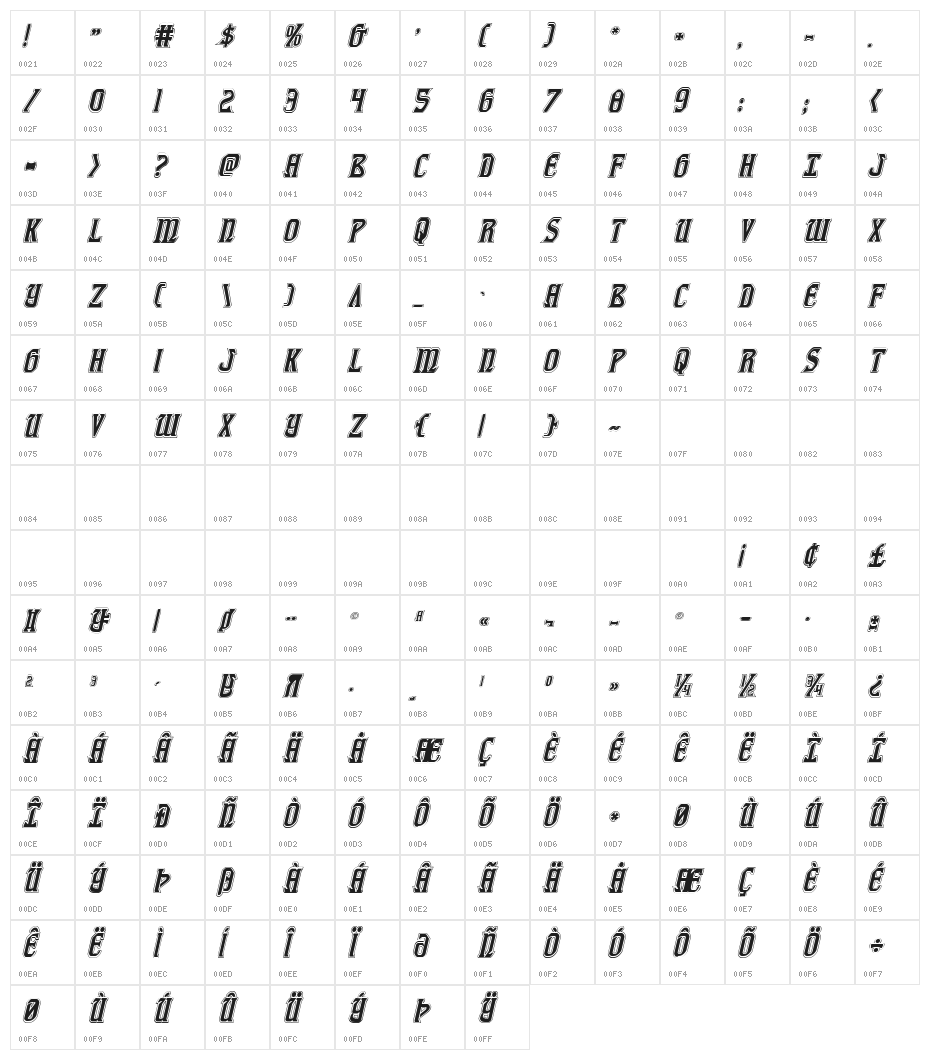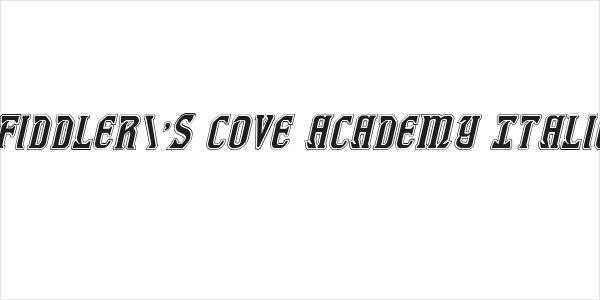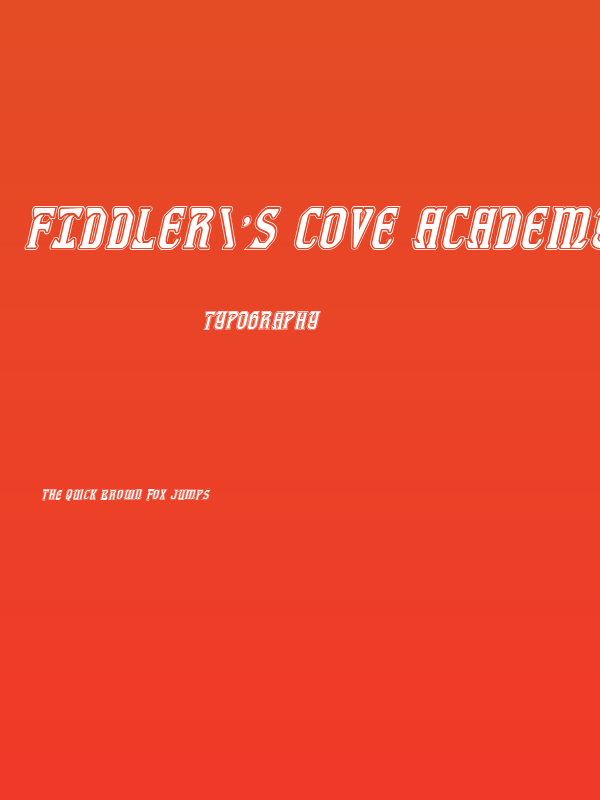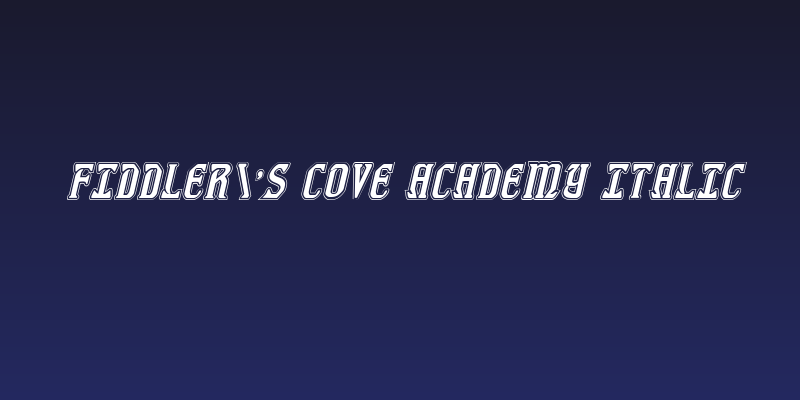
Fiddler's Cove Academy Italic Font
Fiddler's Cove Academy Italic Description
This font features a bold and dynamic style with a strong presence, characterized by its italicized and decorative letterforms. The letters have a distinct shadow effect, giving them a three-dimensional appearance. The strokes are thick and consistent, providing a sense of strength and stability. The font includes both uppercase and lowercase letters, numbers, and a variety of special characters, making it versatile for different design needs. Its unique style makes it suitable for eye-catching headlines and titles.
| Proposed Projects | Ideal for use in branding, posters, and signage where a strong and dynamic presence is desired. |